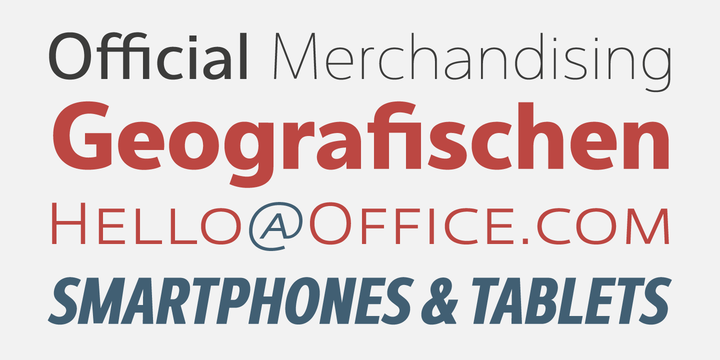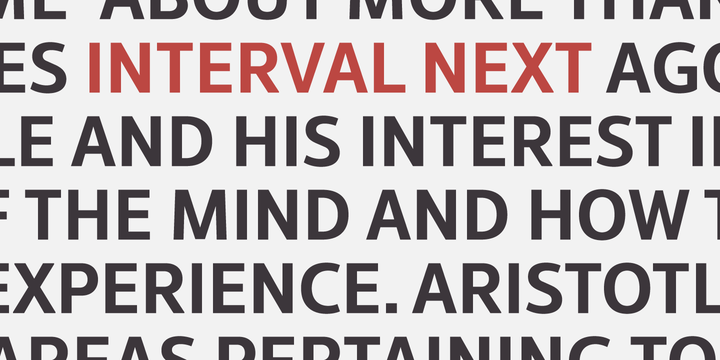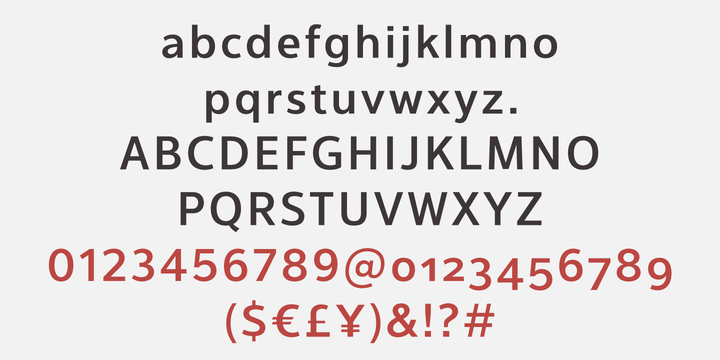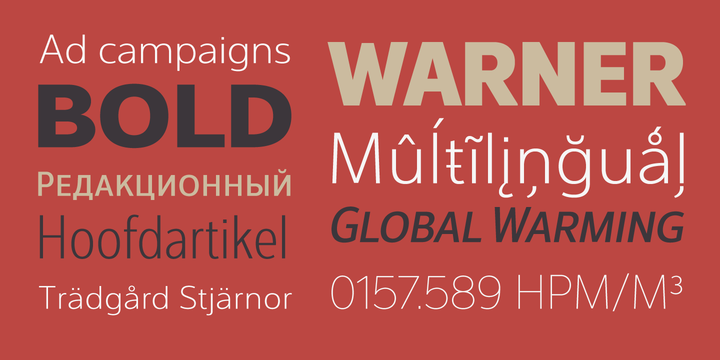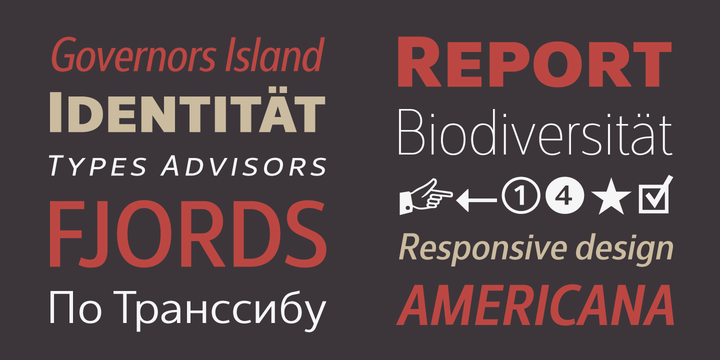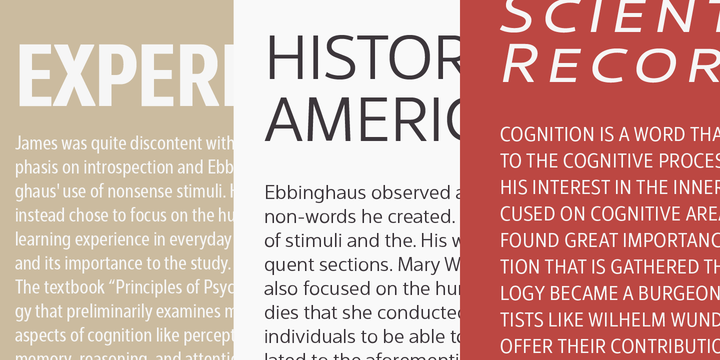
Interval Next Font family
Interval Next is a modern sans serif font family that is the successor of the successful Interval Sans Pro. Designed by Olivier Gourvat, Interval Next typeface consists of 16 fonts in 8 weights — Ultra Light, Light, Book, Regular, Medium, Semi Bold, Bold, Black— and has 4 styles. This super family combines a humanist mind with its contrasted shapes and a modern look with its open counters. With Its four versatile styles (Condensed, Narrow, Roman and Wide) Interval Next have a creative palette able to meet the modern typographic demands.